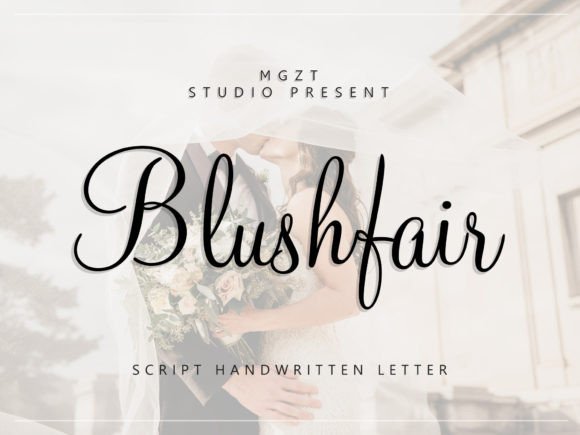
Introducing Blushfair Font: The Epitome of Elegance and Sophistication
In the world of typography, few fonts manage to convey the essence of luxury and beauty as effectively as Blushfair. This elegant, thin, script-style Latin font is a masterpiece of refinement and grace, designed to elevate any design or branding project to new heights. With its smooth flowing letterforms, gentle curves, and intricate details, Blushfair is the perfect choice for those seeking to add a touch of sophistication to their work.
The Characteristics of Blushfair Font
Blushfair’s design is characterized by its thin strokes, which give the font a delicate and airy quality. This feature is particularly effective in creating a sense of elegance and refinement, making it ideal for use in high-end branding, luxury packaging, and upscale editorial projects. The font’s letterforms are meticulously crafted, with subtle flourishes and embellishments that add to its charm.
One of the standout features of Blushfair is its smooth flow. The font’s curves are gentle and fluid, creating a sense of continuity and harmony that is pleasing to the eye. This flow is particularly evident in the way the letters connect, creating a sense of movement and fluidity that draws the reader in.
The Benefits of Using Blushfair Font
So why choose Blushfair for your design or branding project? The answer lies in its versatility and effectiveness. Here are just a few benefits of using Blushfair:
- Elegance and Sophistication: Blushfair’s refined design makes it perfect for high-end branding, luxury packaging, and upscale editorial projects.
- Versatility: The font’s smooth flow and delicate strokes make it suitable for a wide range of applications, from elegant headings to refined body text.
- Attention to Detail: Blushfair’s intricate details and subtle flourishes add a touch of luxury to any design, making it perfect for projects where attention to detail is paramount.
Using Blushfair in Design and Branding Projects
Blushfair is a highly versatile font that can be used in a wide range of design and branding projects. Here are just a few examples:
- Logo Design: Blushfair’s elegant design makes it perfect for use in logo design, particularly for high-end brands seeking to convey a sense of luxury and sophistication.
- Packaging Design: The font’s refined design makes it ideal for use in luxury packaging, adding a touch of elegance and sophistication to any product.
- Editorial Design: Blushfair’s smooth flow and delicate strokes make it suitable for use in upscale editorial projects, such as fashion magazines and luxury lifestyle publications.
The Technical Details of Blushfair Font
For those interested in the technical details of Blushfair, here are a few key features:
- Font Style: Blushfair is a script-style Latin font, characterized by its flowing letterforms and gentle curves.
- Stroke Width: The font’s thin strokes give it a delicate and airy quality, enhancing its elegance and sophistication.
- Character Set: Blushfair includes a comprehensive character set, featuring a wide range of letters, numbers, and punctuation marks.
In conclusion, Blushfair is a truly exceptional font that embodies the essence of elegance and sophistication. Its smooth flowing letterforms, gentle curves, and intricate details make it perfect for use in high-end branding, luxury packaging, and upscale editorial projects. Whether you’re seeking to add a touch of luxury to your design or simply want to create a lasting impression, Blushfair is the perfect choice.
- What is Blushfair font?: Blushfair is an elegant, thin, script-style Latin font designed to convey a sense of luxury and sophistication.
- What is Blushfair font used for?: Blushfair is perfect for use in high-end branding, luxury packaging, and upscale editorial projects.
- Is Blushfair font easy to read?: Yes, Blushfair is designed to be highly legible, making it suitable for use in a wide range of applications.